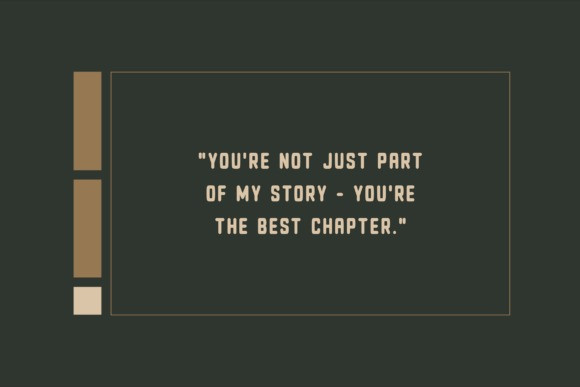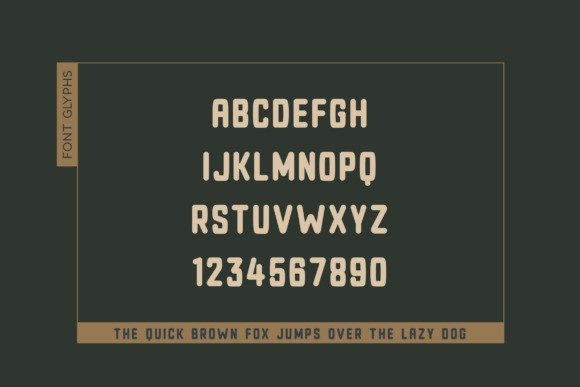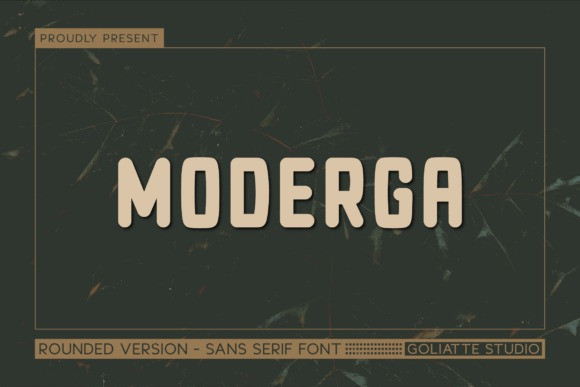
Moderga Font
Moderga Font – an exclusively all caps font that abounds in creativity and versatility. Its dynamic compilation of capital letters from A-Z, numerals 0-9, accented characters and punctuation, bestow it with an appealing diversity. Effortlessly tailored for social media, its friendly design inspires engagement and positivity. Embellish your craft projects with Moderga’s fluid silhouette that exudes simplicity yet refuses to compromise on impact. Dive into its delightful potential for creating statement t-shirts, sleek decals, exquisite cards, and invitations. It’s not just a font—it’s an accent mark to your creativity that amplifies the message with finesse and style. Discover Moderga – a font that puts versatility at its heart and creativity in every stroke.